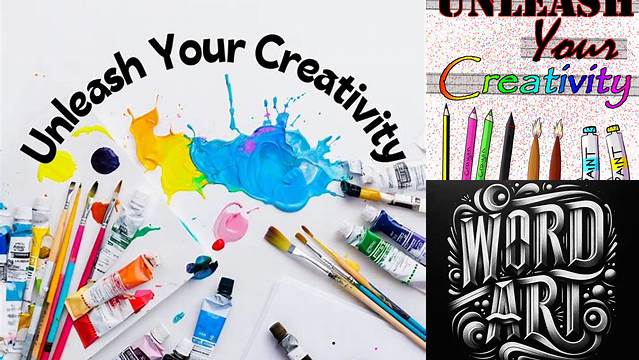
Free Font Word Art: Unleash Your Creativity
Hey guys! Ever wanted to make your text pop, adding that extra oomph to your designs? Well, you've landed in the right place! We're diving deep into the world of free font word art, exploring how you can transform ordinary text into eye-catching masterpieces. Whether you're a seasoned designer or just starting out, understanding the power of fonts and word art can seriously level up your creative game. Let’s get started and unleash your inner artist!
1. Understanding the Basics of Font Word Art
Before we jump into the nitty-gritty, let’s cover the basics. Free font word art is essentially the art of manipulating text to create visually appealing designs. This involves playing with different fonts, colors, sizes, and effects to make your words stand out. Think of it as giving your text a personality of its own. The key is to blend creativity with readability, ensuring your message not only looks good but also gets across effectively. You might be wondering, why bother with word art when you can just use plain text? Well, the answer is simple: word art adds a unique flair and can grab attention in ways plain text simply can’t. From logos to posters, understanding the basics of font word art opens up a world of creative possibilities.
2. Exploring Different Types of Free Fonts for Word Art
One of the most exciting parts of creating free font word art is the sheer variety of fonts available. You’ve got everything from elegant serif fonts that exude sophistication to playful sans-serif fonts perfect for a modern vibe. Script fonts add a touch of personality and handwriting-like charm, while display fonts are designed to make a bold statement. Each font type has its own unique character and evokes different emotions, so choosing the right one is crucial. For example, a bold, futuristic font might be perfect for a tech-related project, while a delicate script font could be ideal for wedding invitations. Exploring these different types allows you to find the perfect match for your project, ensuring your word art truly shines. There are countless resources online where you can discover and download free fonts, making it easier than ever to experiment with new styles.
3. Where to Find Free Fonts for Word Art
Speaking of resources, let’s talk about where to find these free font word art gems. The internet is a treasure trove of free fonts, but it’s essential to know where to look to ensure you’re getting high-quality options that are safe to use. Websites like Google Fonts, DaFont, and Font Squirrel are excellent starting points. Google Fonts offers a vast library of open-source fonts that are perfect for both personal and commercial use. DaFont is another popular choice, offering a diverse collection of fonts contributed by designers from around the world. Font Squirrel focuses on high-quality, commercial-use fonts that are also available for free. When downloading fonts, always double-check the licensing terms to make sure they fit your needs. Some fonts may be free for personal use but require a license for commercial projects. Keeping this in mind will save you from potential copyright issues down the road.
4. Using Font Pairing in Word Art Designs
Font pairing is a key skill in creating stunning free font word art. It involves combining two or more fonts that complement each other to create a cohesive and visually appealing design. The goal is to achieve a balance between contrast and harmony. A common approach is to pair a bold, attention-grabbing font for the headline with a simpler, more readable font for the body text. This creates a visual hierarchy, guiding the reader's eye and making the design more engaging. For example, you might pair a bold sans-serif font like Montserrat with a classic serif font like Merriweather. Alternatively, you could combine a script font like Pacifico with a clean sans-serif font like Open Sans. Experimenting with different font pairings is part of the fun, but it’s important to ensure the fonts you choose work well together and enhance the overall message.
5. Adding Text Effects to Your Word Art
To really make your free font word art pop, consider adding text effects. This is where you can get creative and add depth, dimension, and visual interest to your designs. Common text effects include shadows, glows, outlines, gradients, and textures. Shadows can add a sense of depth, making the text appear to lift off the page. Glows create a soft, luminous effect, perfect for adding a touch of magic. Outlines can help the text stand out against a busy background, while gradients add a smooth color transition. Textures can give your word art a unique, tactile feel. The key is to use these effects sparingly and strategically, ensuring they enhance the design without overwhelming it. For instance, a subtle shadow or outline can make a big difference in readability, while a bold gradient or texture can add a striking visual element.
6. Color Psychology in Word Art Design
Color plays a crucial role in free font word art. The colors you choose can evoke different emotions and associations, so it’s important to consider color psychology when designing your text. For example, blue is often associated with calmness and trustworthiness, making it a popular choice for corporate designs. Red conveys excitement and energy, making it suitable for bold, attention-grabbing messages. Green is associated with nature and growth, while yellow conveys happiness and optimism. When selecting colors for your word art, think about the message you want to convey and the audience you’re trying to reach. Complementary colors (colors opposite each other on the color wheel) can create a vibrant contrast, while analogous colors (colors next to each other on the color wheel) create a harmonious and balanced look. Don't be afraid to experiment with different color combinations to see what works best for your design.
7. Creating Word Art with Different Software
Creating free font word art is easier than ever with the wide range of software options available. From free online tools to professional design software, there’s something for every skill level and budget. If you’re just starting out, free online tools like Canva and PicMonkey are excellent choices. These platforms offer user-friendly interfaces and a variety of templates and design elements to get you started. For more advanced design capabilities, Adobe Photoshop and Illustrator are industry-standard options. These software programs offer a wealth of features and tools for creating intricate word art designs. GIMP is a free, open-source alternative to Photoshop that provides many of the same features. No matter which software you choose, the key is to familiarize yourself with its tools and experiment with different techniques. Each software has its own unique strengths, so finding the one that best suits your workflow and creative vision is essential.
8. Word Art for Logos and Branding
Free font word art can be a powerful tool for creating memorable logos and branding materials. A well-designed logo can capture the essence of a brand and make a lasting impression on customers. When designing a logo using word art, it’s important to consider the brand’s identity and values. The font you choose should reflect the brand’s personality, whether it’s modern and minimalist or classic and elegant. Color plays a crucial role in logo design, as it can evoke specific emotions and associations. For example, a tech company might use a sleek, sans-serif font in a cool blue color, while a boutique bakery might opt for a script font in a warm, inviting color. In addition to the font and color, the overall layout and design of the word art should be visually appealing and easy to remember. A successful logo should be versatile enough to be used across various platforms and mediums, from business cards to websites.
9. Word Art for Social Media Graphics
In today's digital age, social media graphics are essential for engaging your audience and promoting your brand. Free font word art can help you create eye-catching visuals that stand out in the crowded social media landscape. Whether you're designing an Instagram post, a Facebook cover photo, or a Twitter banner, word art can add a touch of creativity and personality to your graphics. When designing word art for social media, it’s important to consider the platform's specific dimensions and guidelines. Keep your text concise and easy to read, as users often scroll quickly through their feeds. Use bold fonts and vibrant colors to grab attention, and don’t be afraid to experiment with different text effects and layouts. Tools like Canva and Adobe Spark make it easy to create professional-looking social media graphics, even if you don’t have a background in design. By incorporating word art into your social media strategy, you can enhance your brand’s visual identity and connect with your audience in a meaningful way.
10. Word Art for Print Materials
While digital design is important, free font word art also plays a significant role in print materials. From posters and flyers to brochures and business cards, word art can help you create visually appealing designs that leave a lasting impression. When designing word art for print, it’s crucial to consider the specific requirements of the printing process. Use high-resolution fonts and images to ensure your designs look crisp and clear. Pay attention to color settings, as colors may appear different on screen than they do in print. Choose fonts that are easy to read in print, and avoid using overly thin or decorative fonts for large blocks of text. Consider the overall layout and composition of your design, and make sure your word art complements the other elements on the page. Whether you’re designing a poster for an event or a brochure for your business, word art can help you communicate your message effectively and make a strong visual impact.
11. Mastering Typography for Word Art
Typography is the art and technique of arranging type to make written language legible, readable, and appealing when displayed. Mastering typography is crucial for creating effective free font word art. This involves understanding the different elements of typography, such as font selection, size, spacing, and alignment. The right font can convey the tone and message of your design, while the wrong font can detract from it. Size and spacing play a significant role in readability, so it’s important to choose a font size that’s appropriate for the context and adjust the spacing between letters and lines to ensure the text is easy to read. Alignment is another key element of typography, as it affects the overall visual balance of your design. Experimenting with different typographic techniques can help you create word art that’s both visually appealing and effective at communicating your message.
12. Kerning, Tracking, and Leading in Word Art
When it comes to mastering typography in free font word art, understanding kerning, tracking, and leading is essential. Kerning refers to the spacing between individual letters, while tracking refers to the uniform spacing between all letters in a word or line. Leading, on the other hand, is the vertical space between lines of text. Adjusting these elements can significantly impact the readability and visual appeal of your word art. Proper kerning ensures that letters are spaced evenly, preventing them from appearing too crowded or too far apart. Tracking can be used to create a more open or condensed look, depending on the design’s needs. Leading affects the flow of text and can make it easier or harder to read. Experimenting with these typographic adjustments can help you fine-tune your word art and create a polished, professional look.
13. Creating 3D Word Art Effects
Adding a 3D effect to your free font word art can instantly elevate your design, giving it depth and visual interest. There are various techniques for creating 3D word art, both in design software and online tools. One common method involves layering multiple copies of the text, slightly offset from each other, to create the illusion of depth. Another technique is to use shadows and highlights to add dimension and make the text appear to pop off the page. Some software programs offer built-in 3D tools that allow you to extrude text and adjust the lighting and perspective. When creating 3D word art, it’s important to strike a balance between visual impact and readability. Avoid making the effect too overwhelming, as this can make the text difficult to read. A subtle 3D effect can often be more effective than a dramatic one.
14. Using Gradients and Overlays in Word Art
Gradients and overlays are powerful tools for adding visual interest and depth to your free font word art. A gradient is a smooth transition between two or more colors, while an overlay is a layer of color or texture applied over the text. Gradients can add a sense of dimension and movement to your word art, while overlays can create a unique texture or mood. For example, you might use a gradient to create a metallic or futuristic look, or an overlay to add a vintage or distressed effect. When using gradients and overlays, it’s important to choose colors that complement each other and enhance the overall design. Experiment with different blending modes and opacity levels to achieve the desired effect. Overlays can also be used to add patterns or images to your word art, creating a truly unique and personalized design.
15. Incorporating Textures in Your Word Art
Textures can add a tactile and visually engaging element to your free font word art. Incorporating textures can give your designs a unique and personalized touch, making them stand out. You can use a variety of textures, such as wood grain, paper, fabric, or even abstract patterns. Textures can be applied to the entire text or selectively to certain areas, depending on the desired effect. There are several ways to incorporate textures into your word art. One method is to use a texture overlay in your design software. Another approach is to create the texture yourself using digital painting techniques or by scanning real-world textures. When using textures, it’s important to consider the overall style and message of your design. A rustic wood texture might be perfect for a vintage-inspired design, while a smooth metallic texture could be ideal for a modern, futuristic look.
16. Creating Animated Word Art
Animated free font word art can add a dynamic and eye-catching element to your designs, making them perfect for social media, websites, and presentations. Animation can range from simple effects, such as fading or sliding text, to more complex animations that involve morphing and transforming letters. There are several tools and software programs that make it easy to create animated word art. Online platforms like Canva and Adobe Spark offer animation features that allow you to add movement to your text with just a few clicks. For more advanced animation capabilities, Adobe After Effects is an industry-standard choice. When creating animated word art, it’s important to keep the animation smooth and fluid, and avoid making it too distracting. The animation should enhance the message, not detract from it. Simple animations, such as subtle fades or transitions, can often be more effective than complex, flashy effects.
17. Word Art Design Trends to Watch
Like any design field, free font word art has its own trends and styles that come and go. Staying up-to-date with the latest trends can help you create fresh and relevant designs that resonate with your audience. Some current trends in word art design include bold typography, geometric shapes, and hand-drawn fonts. Bold typography involves using large, impactful fonts to make a statement, while geometric shapes can add a modern and structured look to your designs. Hand-drawn fonts are popular for their organic and personal feel. Other trends to watch include the use of vibrant color palettes, gradients, and textures. Experimenting with these trends can help you push your creative boundaries and create word art that’s both stylish and effective. However, it’s important to remember that trends are just a starting point. The best designs are those that are unique, authentic, and tailored to the specific message and audience.
18. The Importance of Readability in Word Art
While creativity and visual appeal are essential in free font word art, readability should always be a top priority. If your text is difficult to read, your message will be lost, no matter how beautiful your design is. Readability involves several factors, including font selection, size, spacing, and color contrast. Choose fonts that are clear and easy to read, especially for large blocks of text. Avoid using overly decorative or stylized fonts for the main body of your message. Size and spacing play a crucial role in readability, so ensure your text is large enough to be read comfortably and that the spacing between letters and lines is adequate. Color contrast is another important consideration. Make sure there’s enough contrast between the text and the background to ensure the text stands out. By prioritizing readability, you can create word art that’s both visually stunning and effective at communicating your message.
19. Common Mistakes to Avoid in Word Art Design
Creating free font word art can be a fun and rewarding process, but it’s easy to make mistakes if you’re not careful. Avoiding common pitfalls can help you create more professional and effective designs. One common mistake is using too many fonts in a single design. Sticking to two or three fonts can help maintain a cohesive and balanced look. Another mistake is using fonts that are difficult to read. Always prioritize readability, even if a font looks visually appealing. Overusing text effects, such as shadows, glows, and outlines, can also detract from the overall design. Use these effects sparingly and strategically. Ignoring color psychology is another common mistake. Choose colors that align with the message and tone of your design. By avoiding these common mistakes, you can create word art that’s both visually stunning and effective at communicating your message.
20. Free Word Art Generators and Tools
For those who are new to free font word art or looking for a quick and easy way to create designs, free word art generators and tools can be a lifesaver. These tools offer a user-friendly interface and a variety of templates and design elements to get you started. Online platforms like Canva, PicMonkey, and Adobe Spark offer free word art generators that allow you to create stunning designs in minutes. These tools typically provide a range of font options, color palettes, and text effects to choose from. Some generators also offer pre-designed templates that you can customize to suit your needs. While free word art generators can be a great starting point, it’s important to remember that they may have limitations in terms of customization and advanced features. For more complex designs, you may want to consider using professional design software.
21. Creating Word Art for T-Shirt Designs
Free font word art is a popular choice for t-shirt designs, allowing you to create personalized and stylish apparel. Whether you’re designing shirts for a sports team, a school event, or a personal project, word art can add a unique touch. When designing word art for t-shirts, it’s important to consider the placement and size of the text. The design should be visually appealing and easy to read, even from a distance. Choose fonts that are bold and clear, and avoid using overly intricate or decorative fonts. Color contrast is also crucial. Make sure the text stands out against the fabric color. Before printing, it’s a good idea to create a mockup of your design on a t-shirt to ensure it looks as you intended. With a little creativity, word art can transform a plain t-shirt into a wearable work of art.
22. Word Art for Posters and Flyers
When it comes to creating eye-catching posters and flyers, free font word art can be a game-changer. A well-designed poster or flyer can grab attention and communicate your message effectively. When using word art for posters and flyers, it’s important to consider the overall design and layout. The text should be the focal point, and it should be easy to read from a distance. Use bold fonts and vibrant colors to make your message stand out. Consider the hierarchy of information, and use different font sizes and styles to emphasize key details. Text effects, such as shadows and outlines, can also add visual interest. Make sure the word art complements the other elements on the poster or flyer, such as images and graphics. A well-executed word art design can help your posters and flyers make a lasting impression.
23. Designing Word Art with Calligraphy Fonts
Calligraphy fonts bring an elegant and artistic flair to free font word art, making them ideal for invitations, greeting cards, and other special occasions. These fonts mimic the look of hand-lettered calligraphy, adding a personal and sophisticated touch to your designs. When using calligraphy fonts, it’s important to choose a font that’s easy to read. Some calligraphy fonts can be overly decorative, making the text difficult to decipher. Use calligraphy fonts sparingly, and pair them with simpler fonts for the main body of text. Consider the spacing between letters and lines, as calligraphy fonts often require more space than other fonts. Color choices can also enhance the beauty of calligraphy fonts. Metallic or pastel colors can add a touch of luxury, while bold colors can create a striking contrast. With the right approach, calligraphy fonts can transform your word art into a work of art.
24. Creating Word Art with Retro and Vintage Fonts
Retro and vintage fonts are perfect for creating free font word art that evokes a sense of nostalgia and classic style. These fonts often feature unique characteristics, such as serifs, script styles, and distressed textures. When using retro and vintage fonts, it’s important to choose fonts that complement the overall theme and message of your design. Consider the time period you’re trying to evoke, and select fonts that reflect that era. Color palettes also play a crucial role in creating a retro or vintage look. Earth tones, muted colors, and vintage-inspired hues can enhance the authenticity of your design. Text effects, such as shadows and textures, can further add to the retro feel. Experiment with different font combinations and design elements to create word art that captures the essence of a bygone era.
25. Using Word Art for Invitations and Greeting Cards
Free font word art is a fantastic way to personalize invitations and greeting cards, making them truly special. Whether you’re designing invitations for a wedding, a birthday party, or a holiday gathering, word art can add a touch of elegance and creativity. When using word art for invitations and greeting cards, it’s important to consider the overall theme and style of the event. Choose fonts that reflect the tone of the occasion, whether it’s formal, casual, or whimsical. Color palettes should also complement the theme, with soft colors for elegant occasions and vibrant colors for festive events. Text placement and layout are crucial for readability and visual appeal. Ensure the text is easy to read and that key information, such as the date, time, and location, is prominently displayed. With a little creativity, word art can transform ordinary invitations and greeting cards into cherished keepsakes.
26. Word Art in Presentations: Tips and Tricks
Incorporating free font word art into your presentations can help you create visually engaging slides that capture your audience's attention. However, it’s important to use word art judiciously and avoid overwhelming your slides with too much text. When using word art in presentations, readability should be a top priority. Choose fonts that are clear and easy to read, even from a distance. Use a consistent font style and size throughout your presentation to maintain a professional look. Color contrast is also crucial. Ensure there’s enough contrast between the text and the background to make the text stand out. Text effects, such as shadows and outlines, can add visual interest, but use them sparingly. Focus on conveying your message clearly and concisely, and use word art to highlight key points and create visual impact.
27. Legal Considerations for Using Free Fonts
When using free fonts word art, it’s important to understand the legal considerations and licensing terms associated with each font. Not all free fonts are truly free for all uses. Some fonts may be free for personal use but require a commercial license for business projects. Others may have restrictions on modification or distribution. Before using a free font in your project, always check the licensing terms. Websites like Google Fonts, DaFont, and Font Squirrel typically provide licensing information for each font. Look for terms like